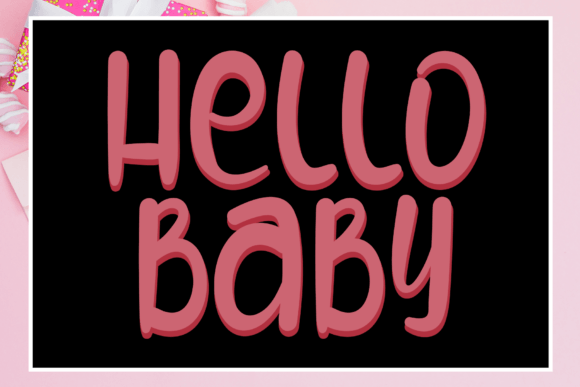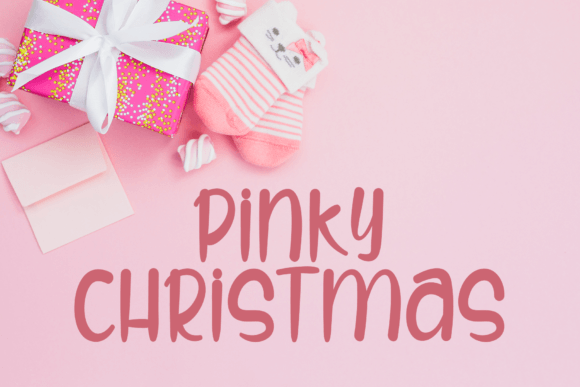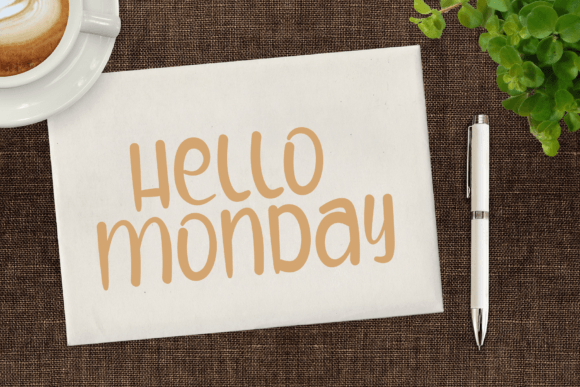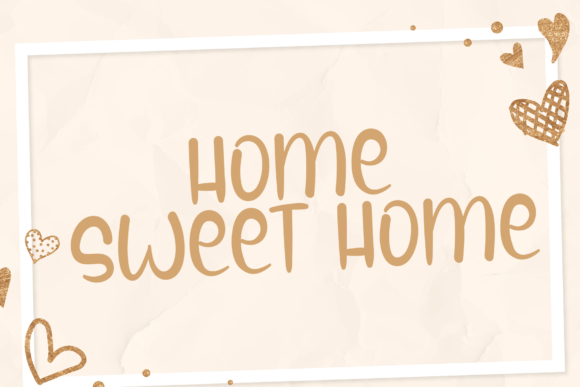
Add a playful touch to your designs with the Hello Baby font, a fun and casual handwritten script that is incredibly versatile. This font is suitable for a wide range of creative projects, making it an excellent choice for designers seeking a friendly and approachable style.
The Hello Baby font features smooth, flowing letters that capture a relaxed and charming vibe. Whether you are working on greeting cards, posters, children’s book designs, social media posts, or branding, this font will elevate your project with its casual elegance.
Thanks to its adaptability, the Hello Baby font can be used in both digital and print media. It fits perfectly in layouts that require a handwritten look without sacrificing readability or professionalism.
Despite its fun and casual style, the Hello Babyfont maintains excellent clarity at various sizes. This makes it perfect for headlines, body text, invitations, and more.
Using the Hello Babyfont will help you create warm and inviting designs that appeal to a broad audience. If you want a versatile handwritten font that combines friendliness with style, this font is the perfect fit.
In conclusion, the Hello Babyfont is a fun, casual, and versatile handwritten script. Ideal for greeting cards, branding, children’s projects, and more. Download it today to bring a lively and approachable feel to your creative work.